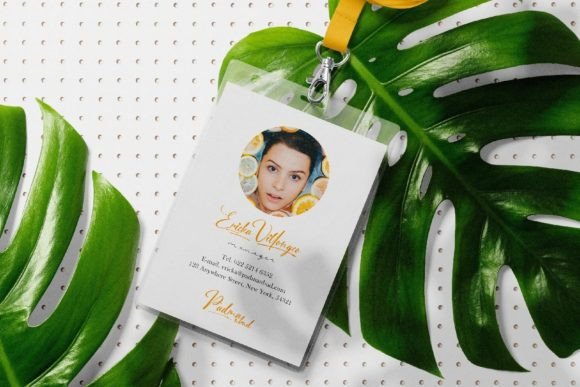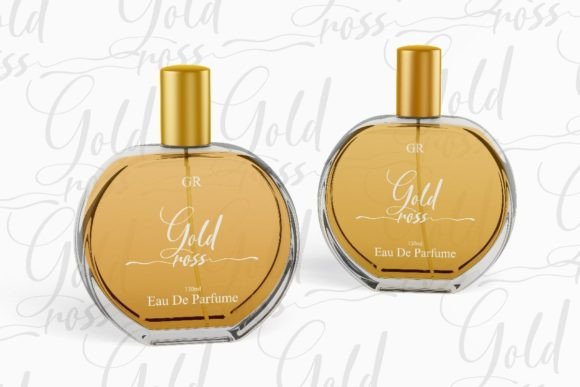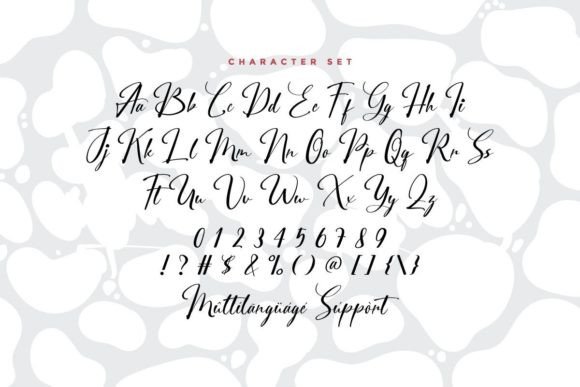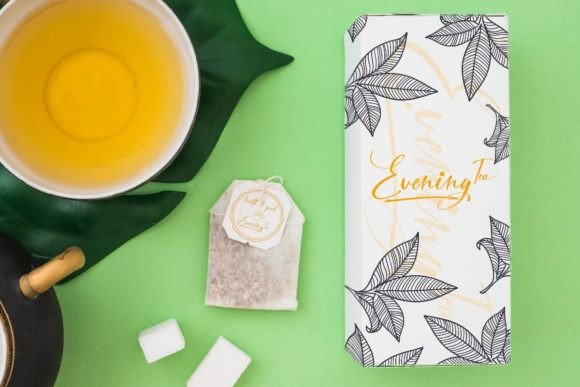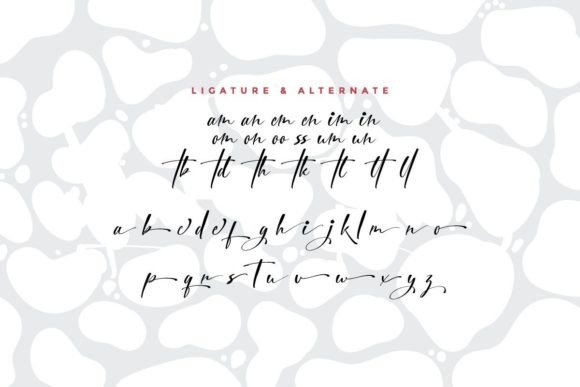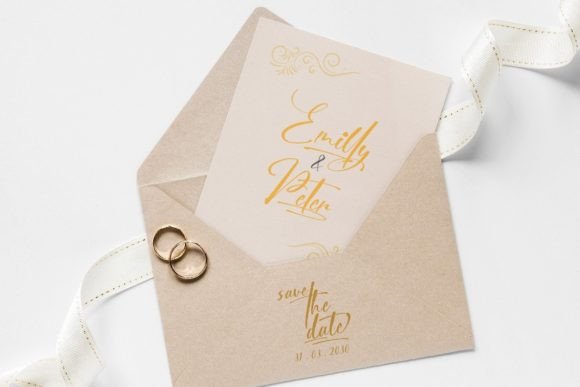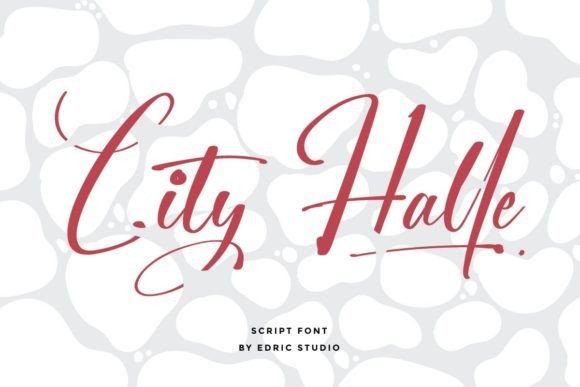
Introducing City Halle Font: Elevate Your Designs with Elegance and Sophistication
In the world of typography, a font can make or break a design. For those seeking a touch of elegance and sophistication, City Halle Font is an exceptional choice. This stylish script font is perfect for designers and crafters looking to add a handwritten touch to their projects. Whether you’re working on wedding invitations, thank you cards, quotes, greeting cards, logos, or business cards, City Halle Font is sure to impress.
A Font that Exudes Elegance and Sophistication
City Halle Font boasts an incredibly elegant script style that instantly elevates any design. Its flowing lines and beautiful swashes make it perfect for a variety of applications, from formal events to branding and marketing materials. The font’s refined aesthetic ensures that your designs will stand out from the crowd, leaving a lasting impression on your audience.
One of the key benefits of City Halle Font is its versatility. This font can be used for a wide range of projects, including:
- Thank you cards and greeting cards
- Quotes and typographic posters
- Social media graphics and digital marketing materials
Wherever you need to add a touch of elegance and sophistication, City Halle Font is an excellent choice.
City Halle Font is PUA (Private Use Area) encoded, making it incredibly easy to access all the glyphs and swashes. This means you can effortlessly add flourishes and decorative elements to your designs, taking them to the next level. With PUA encoding, you can:
- Access a wide range of glyphs and swashes
- Easily customize your designs
- Save time and increase productivity
Why Choose City Halle Font?
With so many fonts available, why choose City Halle Font? Here are just a few reasons:
- Unique and distinctive style: City Halle Font offers a one-of-a-kind script style that will set your designs apart.
- Elegance and sophistication: This font exudes refinement and poise, making it perfect for formal events and branding materials.
- Easy to use: With PUA encoding, accessing glyphs and swashes is a breeze.
- Versatile: City Halle Font can be used for a wide range of projects and applications.
Tips for Using City Halle Font
To get the most out of City Halle Font, here are a few tips:
- Experiment with different sizes and colors: City Halle Font looks stunning in a variety of sizes and colors, so don’t be afraid to experiment.
- Pair with complementary fonts: Combine City Halle Font with complementary fonts to create visually appealing designs.
- Use swashes and glyphs: Take advantage of the font’s PUA encoding to add decorative elements and flourishes to your designs.
City Halle Font is an exceptional script font that offers elegance, sophistication, and versatility. With its PUA encoding and wide range of glyphs and swashes, this font is perfect for designers and crafters looking to add a handwritten touch to their projects. Whether you’re working on wedding invitations, logos, or business cards, City Halle Font is sure to impress. So why wait? Download City Halle Font today and take your designs to the next level!